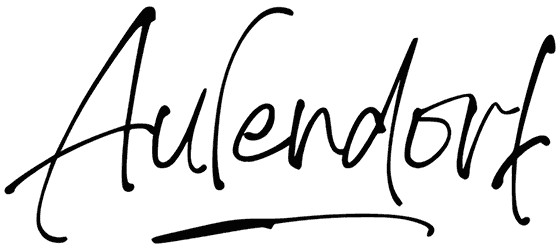
Alishanty Signature Font
Alishanty Signature is a versatile handwritten font with a clean and stylish modern European twist and a cohesive look for text and headings. This script font is an excellent addition to your toolbox and can become a bright spot in your artwork.
The human condition and authentic personality hidden in this sexy font have made it, despite being illegible, still have a special place in projects that require a personal touch and direct communication with the audience.